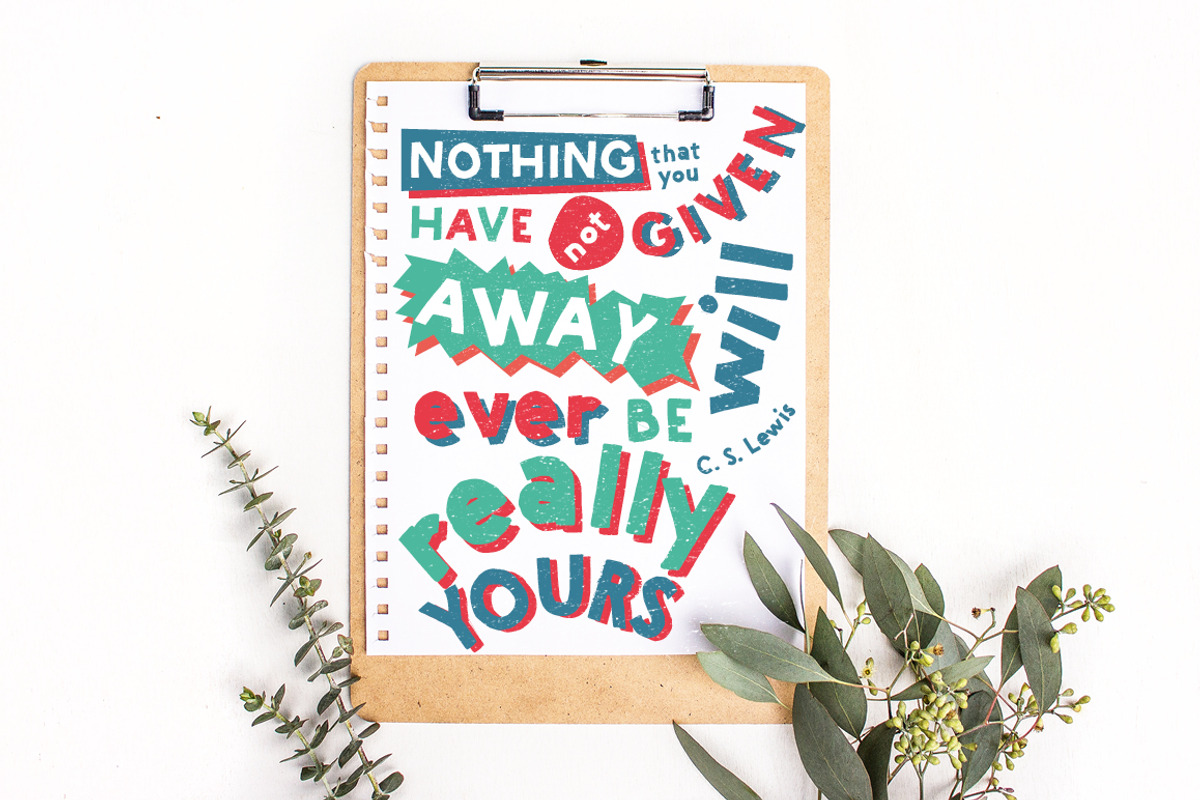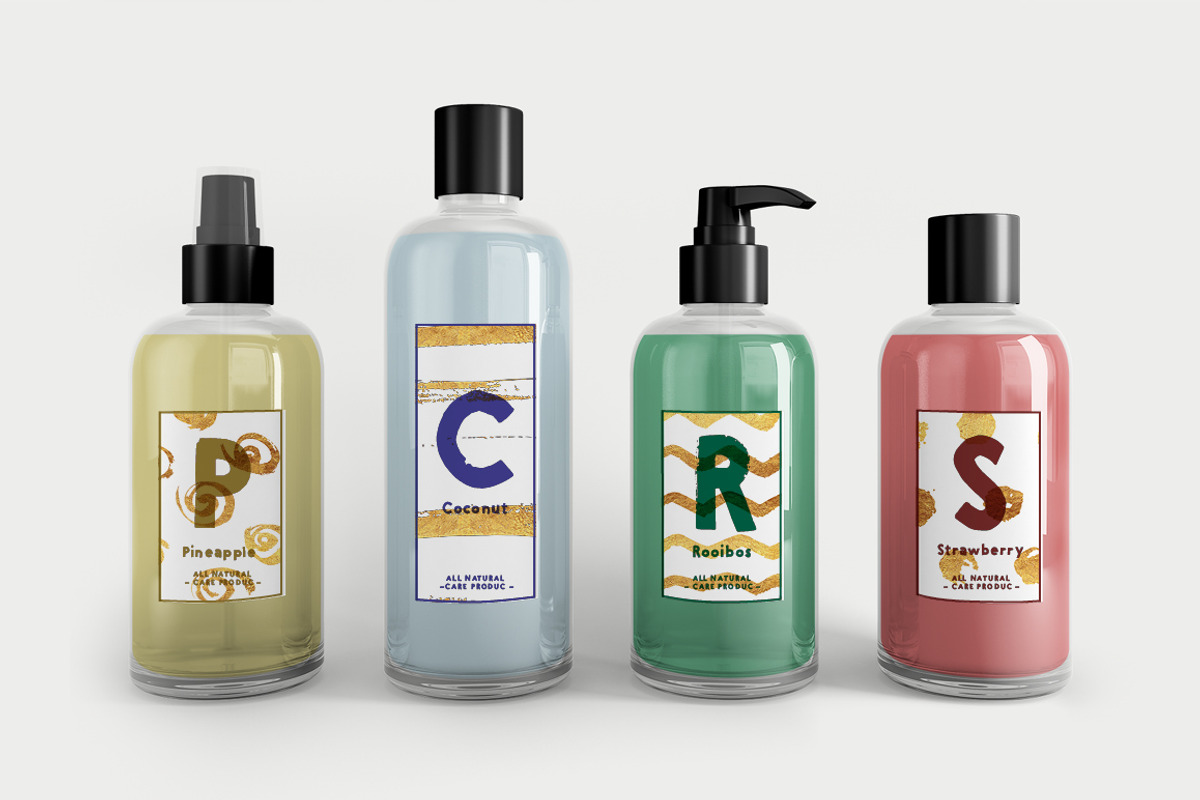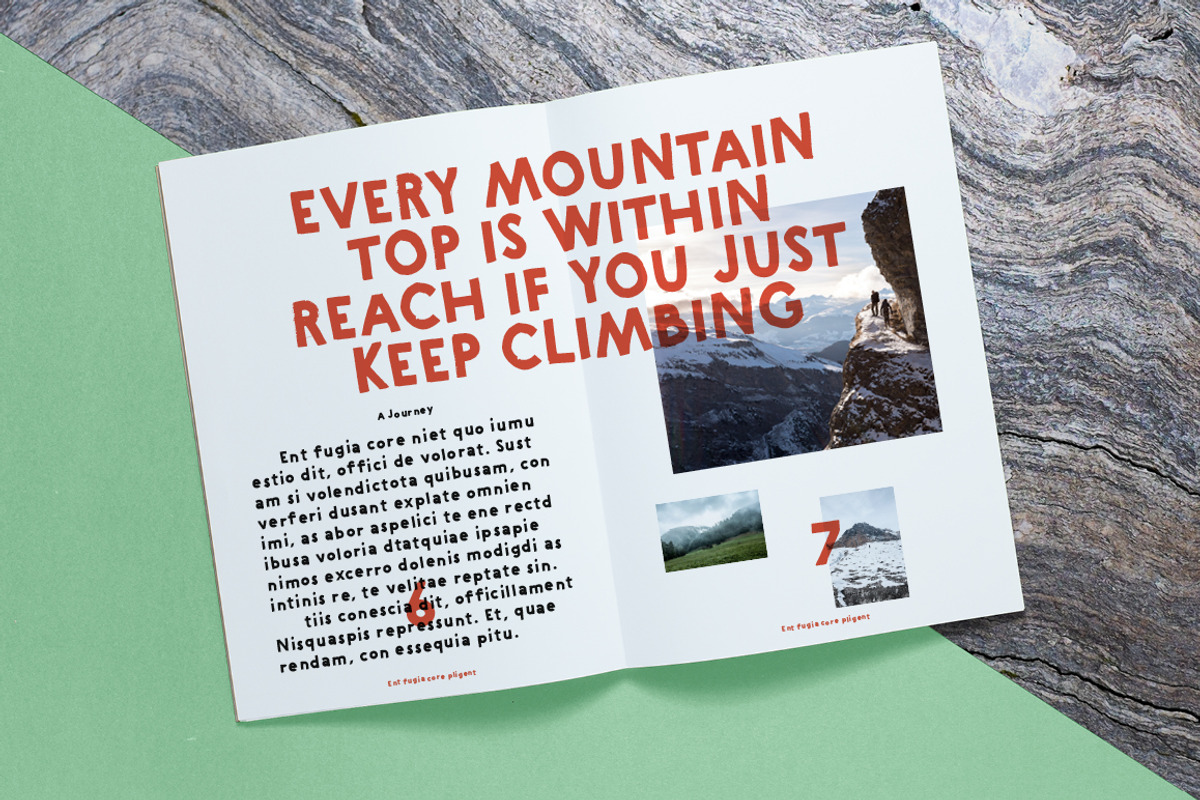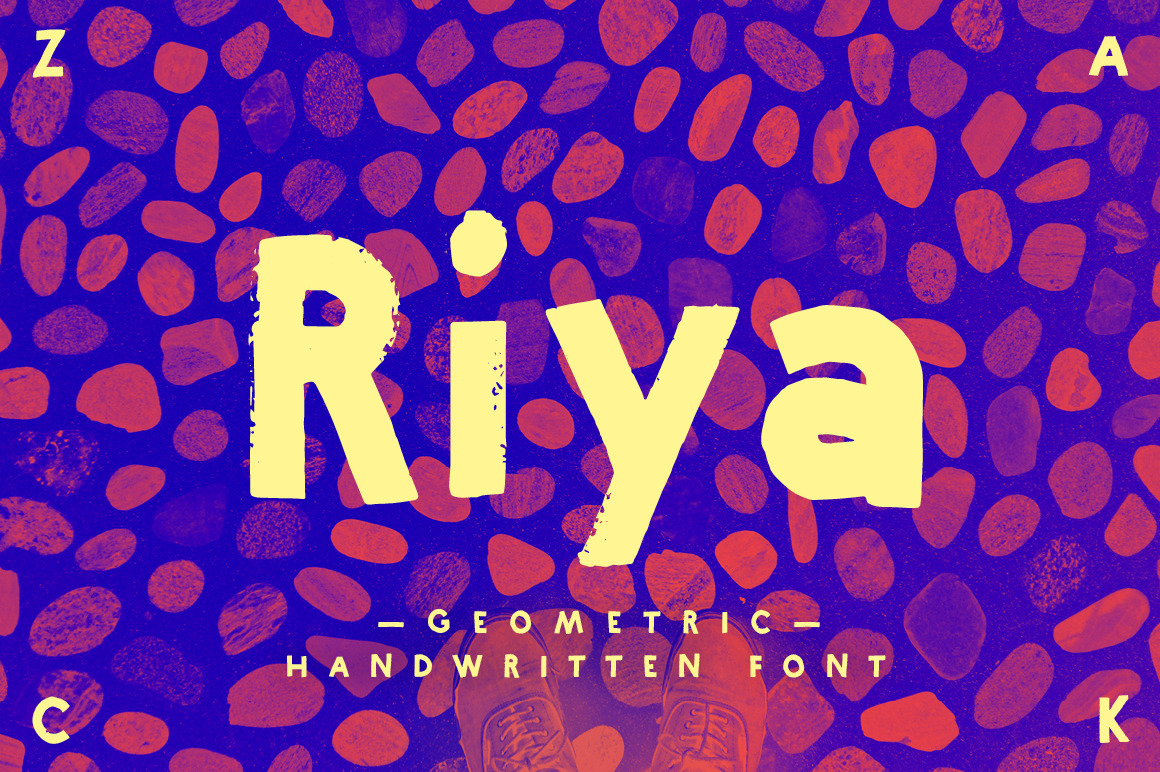
Riya – Geometric Handwritten Font
Introducing: Riya is a geometric handwritten font that looks great in every context. Just check out the product pictures above.